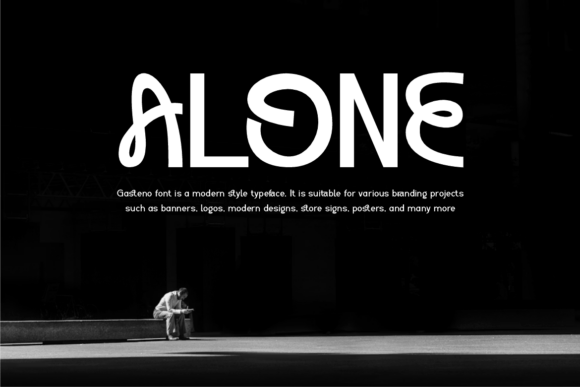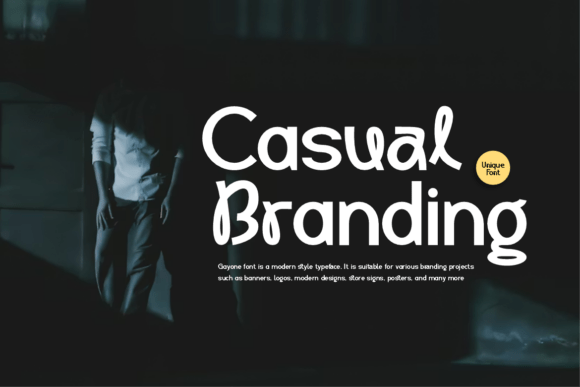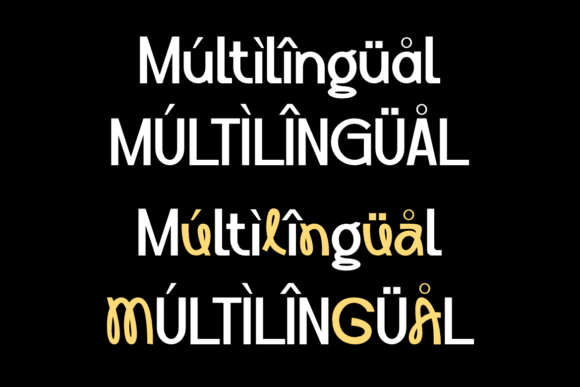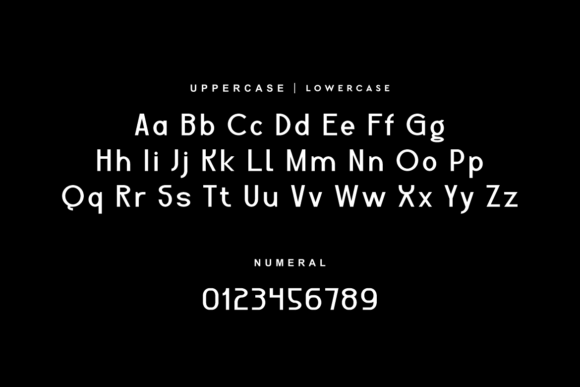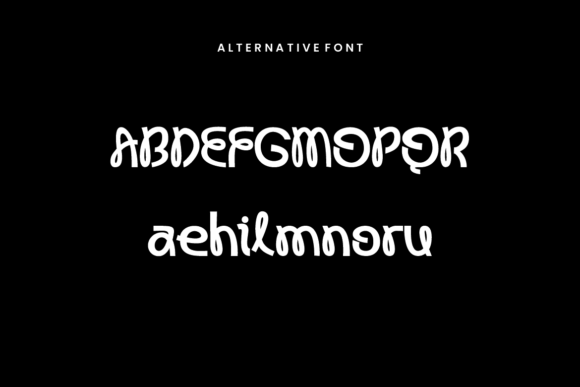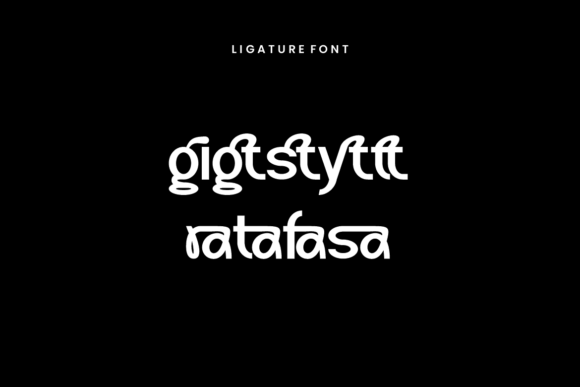
I still remember the frustration of working on a logo design project for a sports brand. The concept was solid, the colors were vibrant, but something was missing – the right font. I scoured the internet, tried out countless typefaces, but none seemed to capture the essence of the brand. That was until I stumbled upon Gasteno Font. It was like a breath of fresh air! The bold and authentic display typeface instantly elevated my design, and I knew I had found the perfect fit.
Gasteno Font: A Bold and Authentic Display Typeface
Gasteno Font is a stunning display typeface that has taken the design world by storm. Its bold and authentic style makes it perfect for various branding projects such as logos, sports designs, and more. This font stands out beautifully in a wide range of contexts, making it a versatile addition to any designer’s toolkit.
One of the standout features of Gasteno Font is its multilingual support. This means you can use it to create designs for a global audience, without worrying about language limitations.
- ✨ Bold and authentic style that’s perfect for making a statement
- ✅ Multilingual support for global designs
- ✅ Easy to read, even in smaller sizes
- ✅ Works beautifully in a wide range of contexts
While Gasteno Font is an excellent choice for many design projects, there are a few things to keep in mind:
- ⚠️ Limited use for body text, as it’s a display typeface
- 🤔 May not work well for very formal or traditional designs
The Backstory of Gasteno Font
Gasteno Font was designed with the goal of creating a bold and authentic display typeface that would stand out in any design. The designer, inspired by the world of sports and outdoor activities, aimed to create a font that would evoke a sense of energy and dynamism. The result is a font that’s perfect for logos, sports designs, and more.
Q: Is Gasteno Font suitable for body text?
A: While Gasteno Font is an excellent display typeface, it’s not ideal for body text. Its bold style works best for headlines and titles.